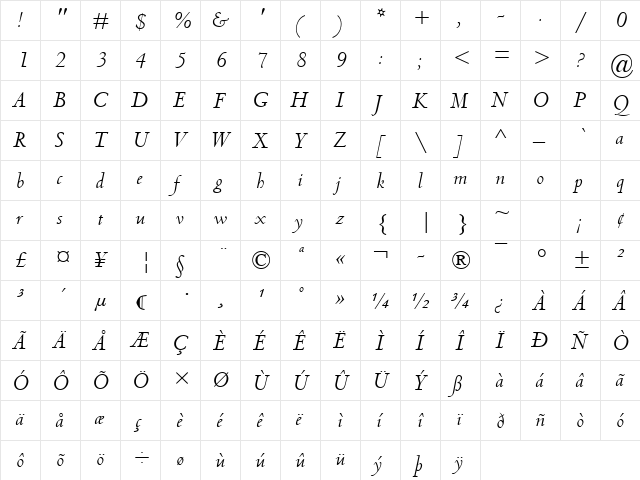
Centaur Italic
Design Context for Centaur Typeface
Centaur is a composed and adaptable typeface that performs quietly and consistently across a wide range of design contexts. The dynamic lean of this cut emphasises speed and emphasis in any layout.
Pro Tip: Try Centaur for annotation and caption copy alongside an upright companion — the contrast in angle creates a dynamic but ordered typographic system.